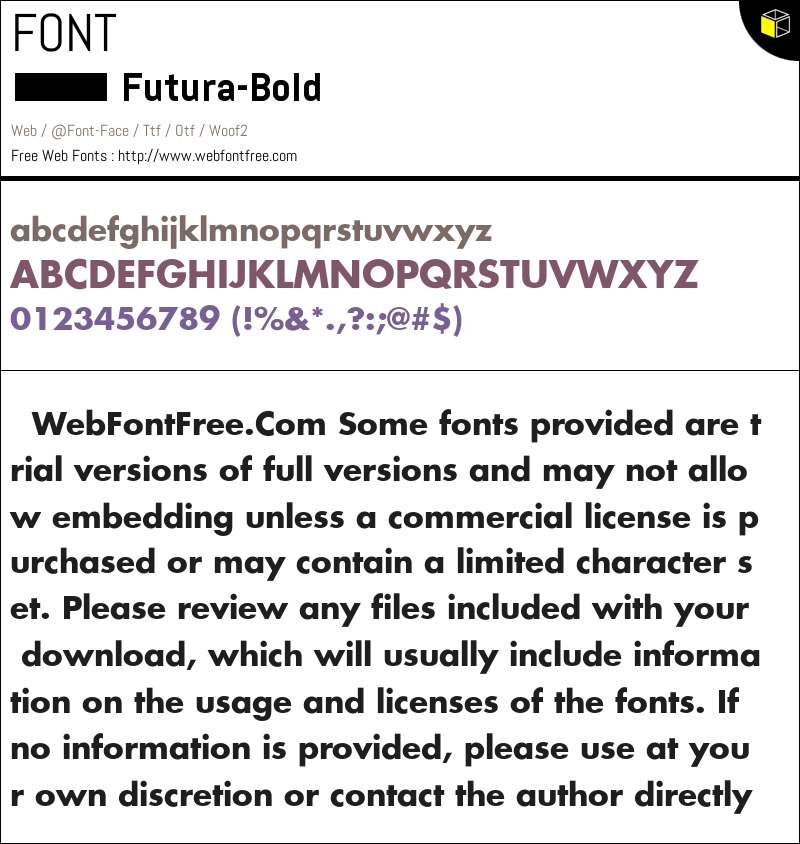
Web i’ve been looking for a font with a futuristic feel for a project and this post is extremely helpful. Download free and premium fonts. The futura font family is exactly what i needed. View sample text, character map, user rating and review for futura bold.
Futura Bold Free Font - View sample text, character map, user rating and review for futura extra bold. Web futura bold font free download. Download free and premium fonts. A great choice for highlighting your design elements. Click to rate this post!
Futura Bold Free Font - See how to download futura bold for free! Click to rate this post! Web download futura bold for free. A great choice for highlighting your design elements. Web fontsplace is the best place to download futura bold bt for free.
Futura Bold Free Font - Web fontsplace is the best place to download futura bold bt for free. View sample text, character map, user rating and review for futura extra bold. Web futura bold font free download. Web download futura extra bold for free. The futura font family is exactly what i needed.
Futura Bold Free Font - Web i’ve been looking for a font with a futuristic feel for a project and this post is extremely helpful. Web download futura extra bold for free. Click to rate this post! See how to download futura bold for free! Web futura bold font free download.
Futura Bold Free Font - Download free and premium fonts. Click to rate this post! View sample text, character map, user rating and review for futura extra bold. See how to download futura bold for free! Web i’ve been looking for a font with a futuristic feel for a project and this post is extremely helpful.
Futura Bold Free Font - See how to download futura bold for free! Download free and premium fonts. Click to rate this post! View sample text, character map, user rating and review for futura extra bold. A great choice for highlighting your design elements.
Futura Bold Free Font - View sample text, character map, user rating and review for futura bold. See how to download futura bold for free! Download free and premium fonts. A great choice for highlighting your design elements. Web fontsplace is the best place to download futura bold bt for free.
Futura Bold Free Font - Web i’ve been looking for a font with a futuristic feel for a project and this post is extremely helpful. Web download futura extra bold for free. Download free and premium fonts. View sample text, character map, user rating and review for futura bold. Web download futura bold for free.
Futura Bold Free Font - View sample text, character map, user rating and review for futura bold. Web i’ve been looking for a font with a futuristic feel for a project and this post is extremely helpful. The futura font family is exactly what i needed. Web fontsplace is the best place to download futura bold bt for free. Web download futura extra bold for.
Futura Bold Free Font - A great choice for highlighting your design elements. Web download futura extra bold for free. Web fontsplace is the best place to download futura bold bt for free. Download free and premium fonts. View sample text, character map, user rating and review for futura extra bold.
Futura Bold Free Font - View sample text, character map, user rating and review for futura bold. Click to rate this post! Web fontsplace is the best place to download futura bold bt for free. Web download futura extra bold for free. Web download futura bold for free.
Futura Bold Free Font - Web fontsplace is the best place to download futura bold bt for free. A great choice for highlighting your design elements. Click to rate this post! Web download futura extra bold for free. Web download futura bold for free.
Futura Bold Free Font - View sample text, character map, user rating and review for futura bold. Web i’ve been looking for a font with a futuristic feel for a project and this post is extremely helpful. Web fontsplace is the best place to download futura bold bt for free. The futura font family is exactly what i needed. See how to download futura bold.
Futura Bold Free Font - Web fontsplace is the best place to download futura bold bt for free. Web i’ve been looking for a font with a futuristic feel for a project and this post is extremely helpful. See how to download futura bold for free! The futura font family is exactly what i needed. Web download futura extra bold for free.